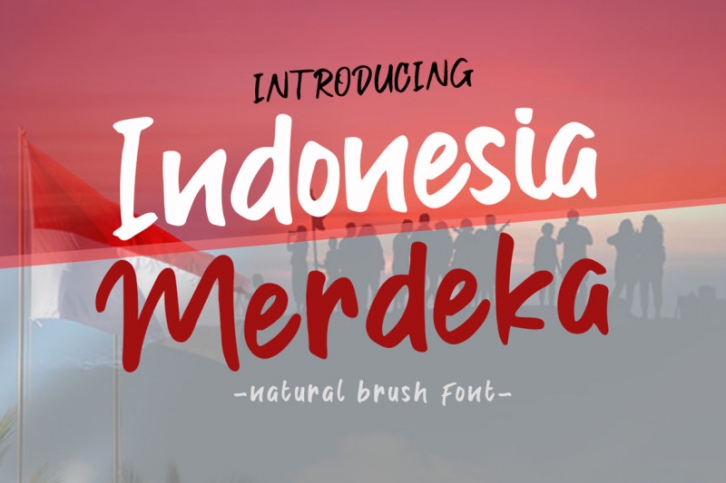
Indonesia Merdeka is a hand-crafted brush font with a friendly and light feel. Use it to turn any design project into a true standout.
This special font we made to celebrate the 74th anniversary of Indonesia's Independence day. Its natural touch tells about the braveness, beauty and authenticity of Indonesian culture.
This font is perfect to show up your freedom feeling to your design. Using Indonesia Merdeka for branding and logo is the best choice to do.
Celebrate your freedom!!! Use Indonesia Merdeka brush font right now.